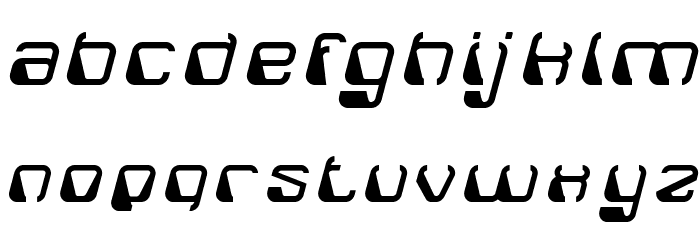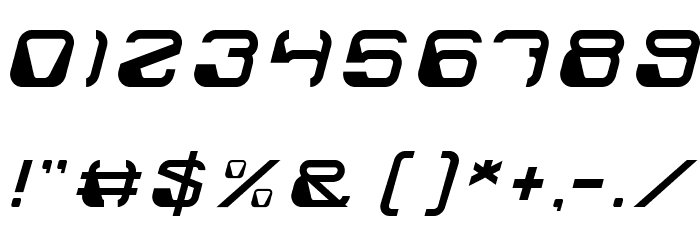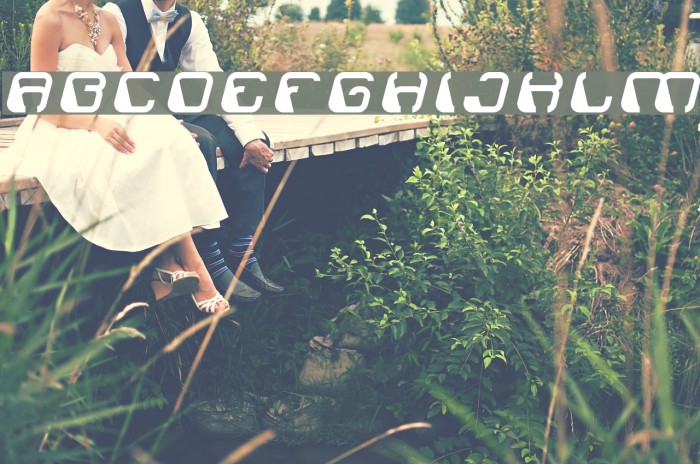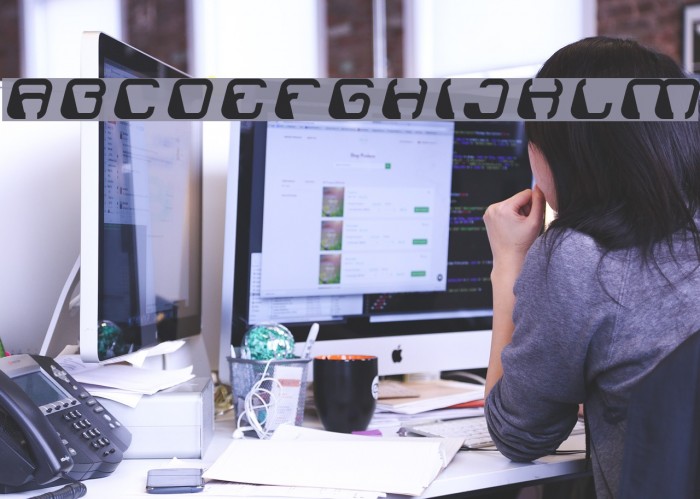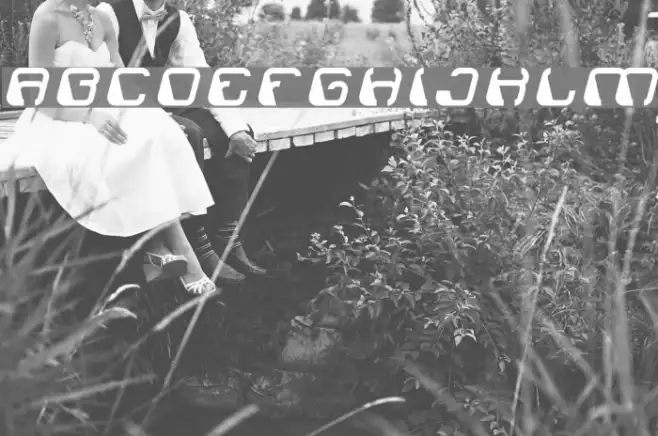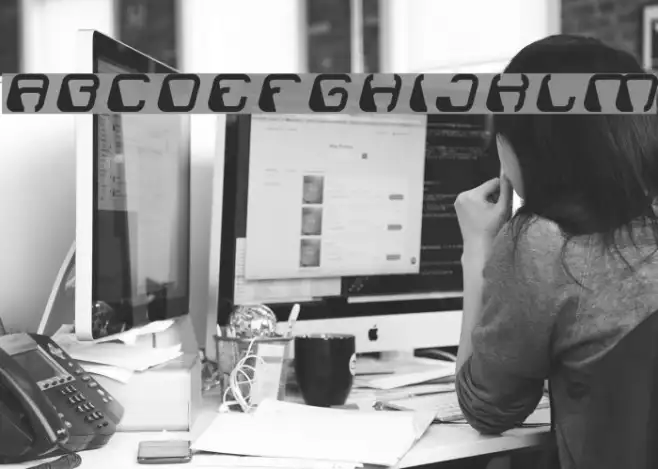
ElectroMagnetLight Font
This font exhibits a futuristic and dynamic style, characterized by its angular and geometric letterforms. The letters have a distinct slant, giving them a sense of motion and energy. The strokes are bold and consistent, with a medium contrast between thick and thin lines. The overall design is sleek and modern, making it suitable for projects that require a contemporary and tech-savvy appearance. The characters are well-spaced, ensuring readability while maintaining a compact look. The unique design elements make it stand out, particularly in digital and technology-related contexts.
A futuristic, angular font with bold strokes and a dynamic slant.
- Proposed Projects: Ideal for tech branding, digital interfaces, gaming titles, and futuristic posters.
- Use Case: Headlines, Logos, Digital interfaces